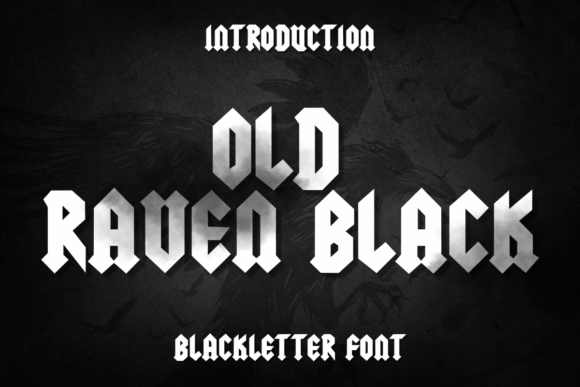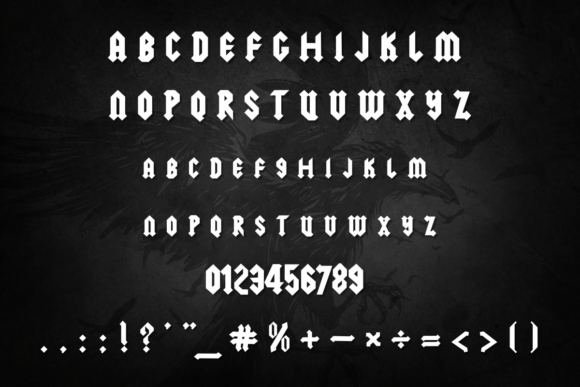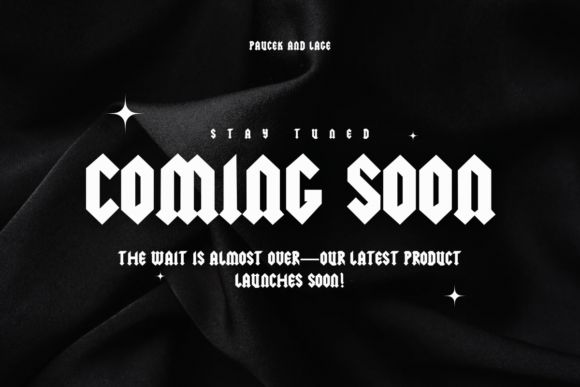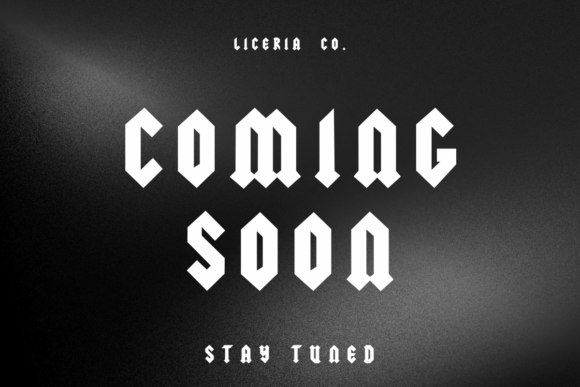
Old Raven Black Font: Gothic Typography for Bold Logo Design
About the Old Raven Black Font
From logos to headlines, the Old Raven Black Font is the perfect choice for making a lasting impression. Old Raven Black is a bold and dramatic blackletter font that fuses medieval gravitas with a modern edge. Its sharp angles, heavy strokes, and Gothic structure make it the perfect typeface for horror themes, metal band logos, game titles, and any project demanding intensity and dark flair.
This font excels in headlines, logos, and short impactful text for projects needing a strong, authoritative presence. It’s ideal for branding in the music, gaming, or fantasy genres, as well as posters and packaging where a bold statement is crucial. Avoid using Old Raven Black for body text or UI elements; its highly decorative nature hinders readability in longer passages.
Pairing Old Raven Black with a clean sans-serif like Montserrat or a minimalist geometric font like Futura creates a striking contrast, balancing its weight and complexity. For a more traditional feel, a simple serif such as Garamond or a slightly more modern serif like Playfair Display can work well.
Old Raven Black’s core personality is bold, rebellious, and undeniably dramatic. Its gothic influence lends an air of mystery and power, making it perfect for brands and projects that want to convey intensity and a strong visual identity.
Old Raven Black Font Usage Examples
Old Raven Black Font Example